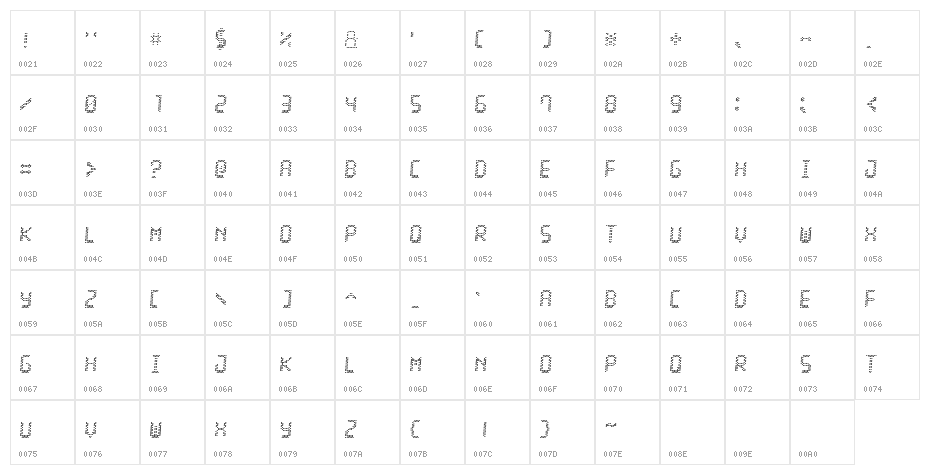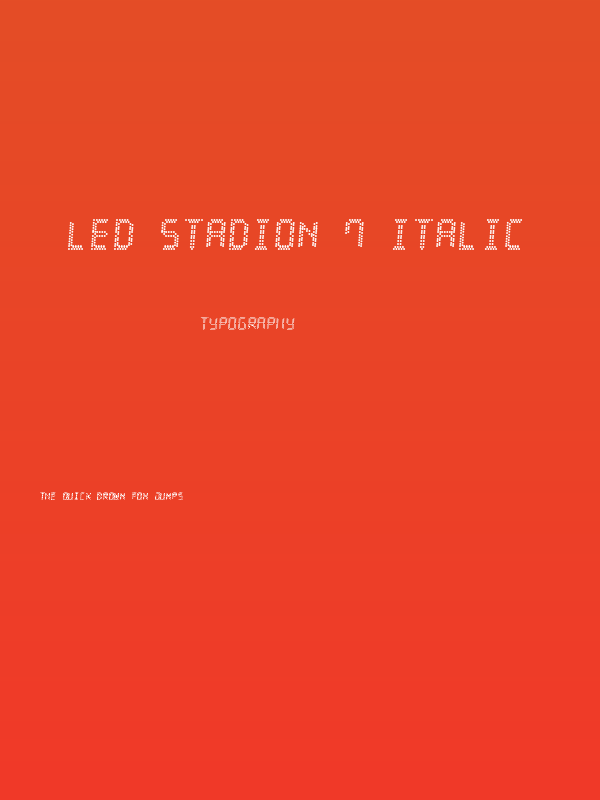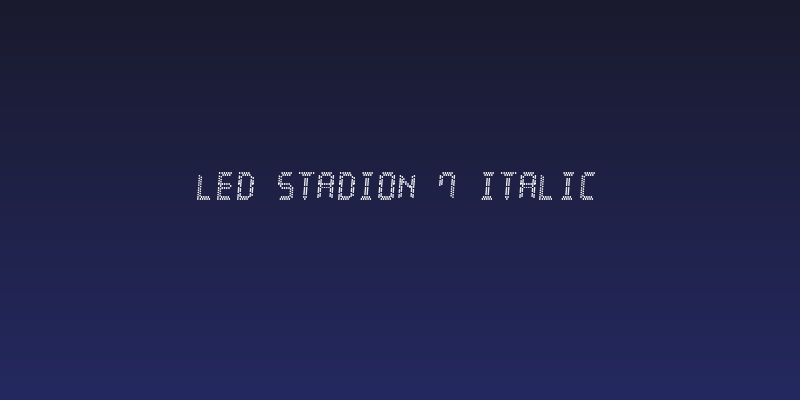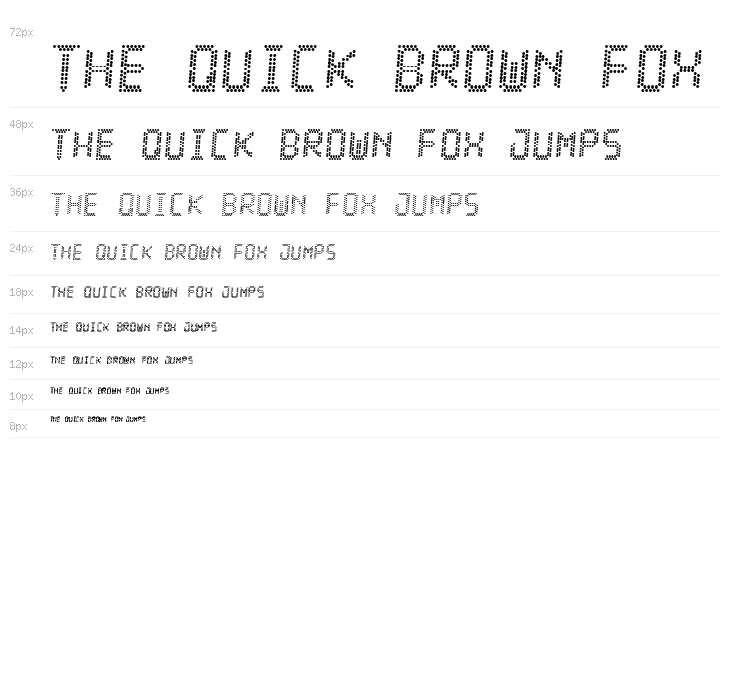
LED Stadion 7 Italic Font
LED Stadion 7 Italic Description
This font features a distinctive dot matrix design, reminiscent of LED displays. Each character is composed of a series of small, evenly spaced dots, creating a digital and modern appearance. The italic style adds a dynamic slant to the characters, enhancing the futuristic feel. The uppercase and lowercase letters maintain a consistent height, while the numerals and special characters are clearly legible, making it suitable for digital displays. The overall aesthetic is clean and minimalistic, with a focus on clarity and readability.
| Use Case | Headlines, Logos, Digital displays |
| Proposed Projects | Ideal for digital displays, electronic signage, tech-themed designs, and retro-futuristic projects. |